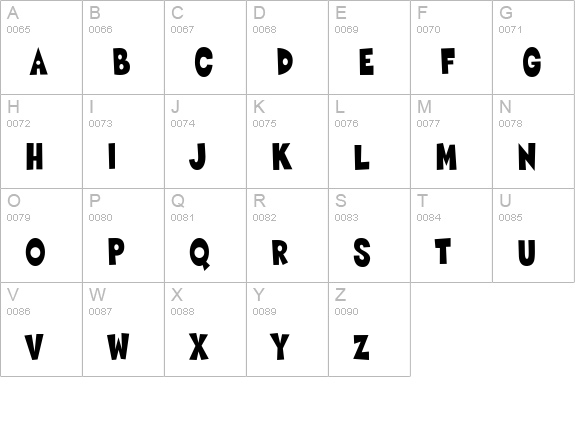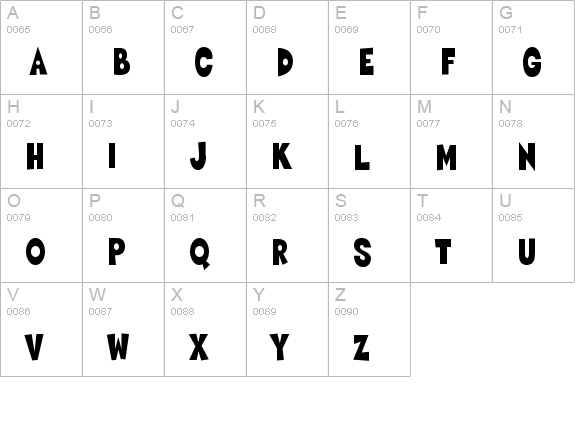
Sneakerhead BTN Condensed Font Details
Sneakerhead BTN Condensed is a distinctive, condensed-width variant in the Sneakerhead typeface family \xE2\x80\x94 well suited to design and typography projects.
Introducing Sneakerhead BTN Condensed font, the ultimate typographic expression of sneaker culture. This sleek and modern typeface captures the essence of the sneakerhead community, with its bold and dynamic design. Every letter is meticulously crafted to reflect the passion and dedication of those who are devoted to the art of sneakers. With its condensed form, Sneakerhead BTN Condensed font exudes a sense of speed and movement, mirroring the fast-paced world of sneaker collecting. Its sharp angles and clean lines create a visually striking display that commands attention. Whether used for branding, headlines, or graphic design projects, this font is sure to make a powerful statement. What sets Sneakerhead BTN Condensed font apart is its versatility and adaptability. Whether you want to convey a sense of urban coolness or street style, this font has got you covered. Its condensed form allows for easy legibility in various sizes, making it suitable for both print and digital applications. But what makes this font truly special is that it is available for free! That's right, you can freely download Sneakerhead BTN Condensed font at FontsMarket.com. We believe that great design should be accessible to all, and by making this font available for free, we are empowering designers, sneaker enthusiasts, and creatives alike to bring their vision to life. So, whether you're designing a sneaker-inspired poster, creating a logo for a streetwear brand, or simply want to add a touch of urban flair to your designs, Sneakerhead BTN Condensed font is the perfect choice. Download it now at FontsMarket.com and unleash your creativity today!